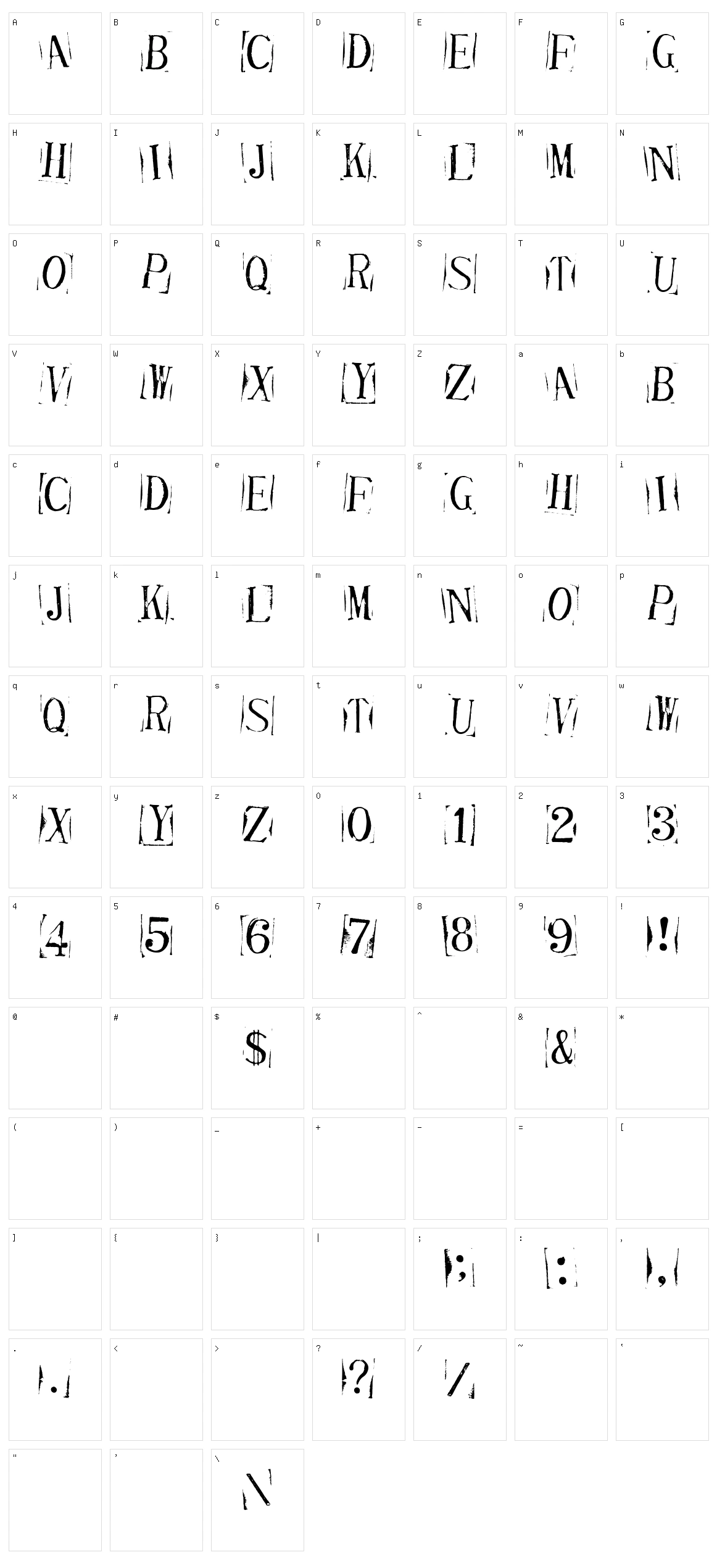
ABOUT TICKET CAPITALS
This font was over-inked and digitized by moi, l'Abcdarienne, in 1997. It includes capitals (duh) and numbers and puncuation. Since there were no lower case letters, I repeated the capitals where the lower case goes.
I bought this set of extremely cheap rubber stamps at Pic'N'Save, and stamped them with dark blue ink. The letters in TICKET CAPITALS REPRESSED feature lighter impressions and more breaks in the impression. The letters in TICKET CAPITALS IMPRESSED feature more ink and darker impressions. Of course you aren't going to set much text with this font, but let me tell ya, these make great drop caps!
BY THE WAY...
The name Ticket was partly inspired by the words ADMIT ONE floating through my brain, and also because it rhymes with Thicket and Cricket, two of my other fonts (but that's really no longer cute at all!).
Oh, and, there was another font-maker who made a font out of the same set of stamps; it didn't feature as much crap around the edges as mine, but it got into this really neat neotypo book. I think her name is Linda and she lives in Santa Clarita (just north of L.A.). If someone knows her, please ask her to drop me a line. Thanks!